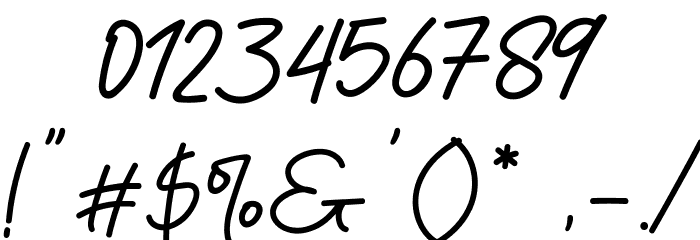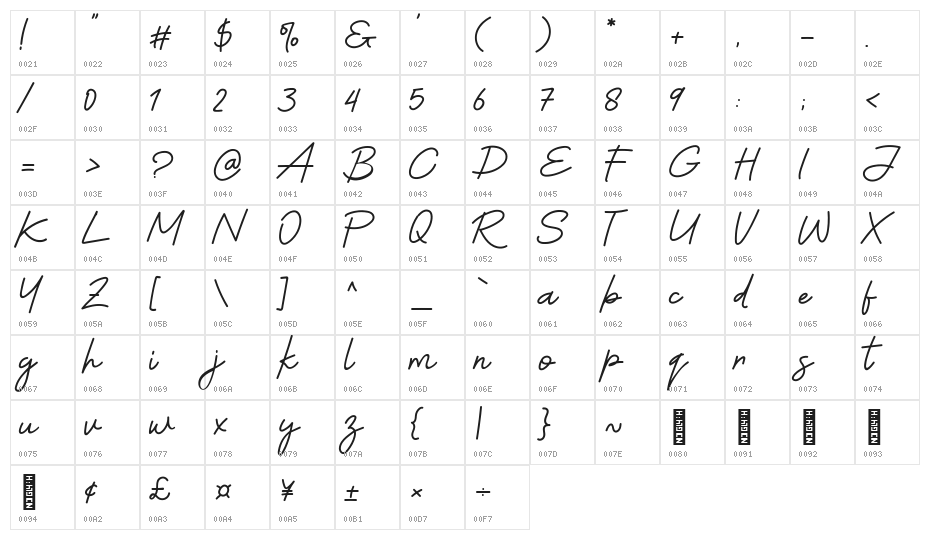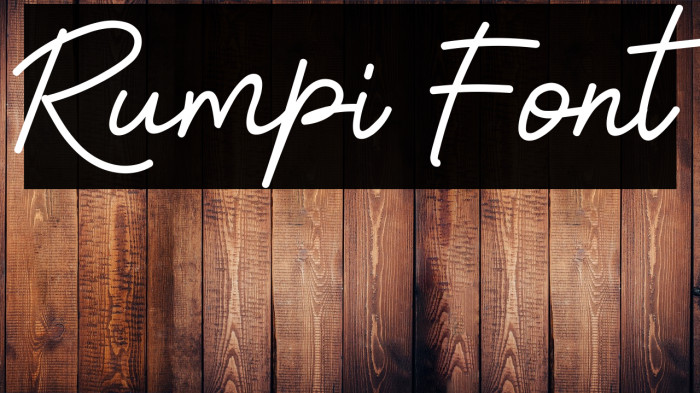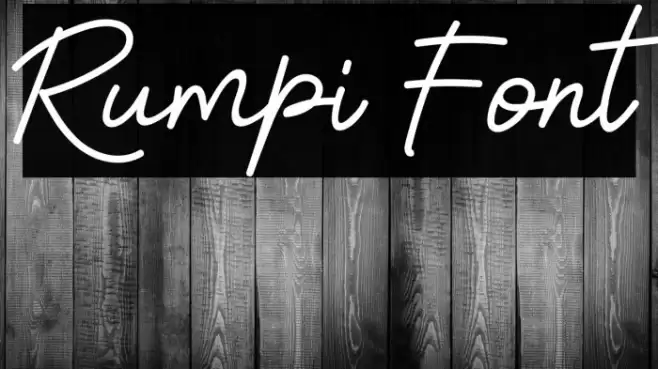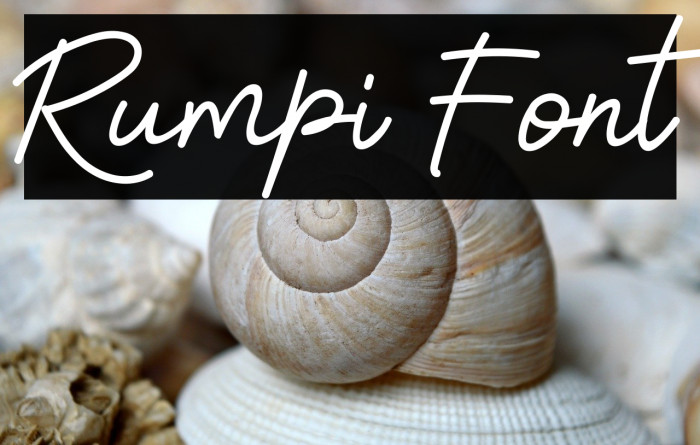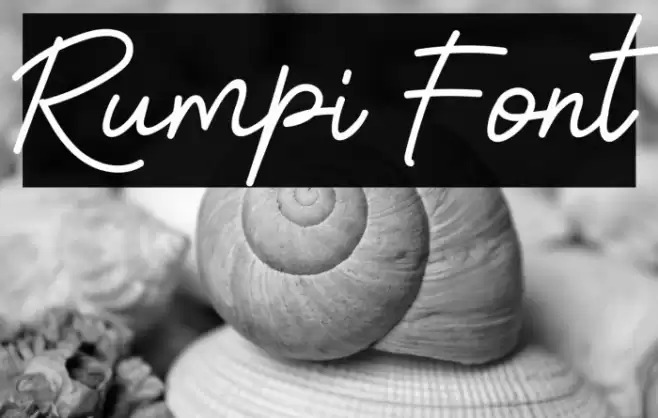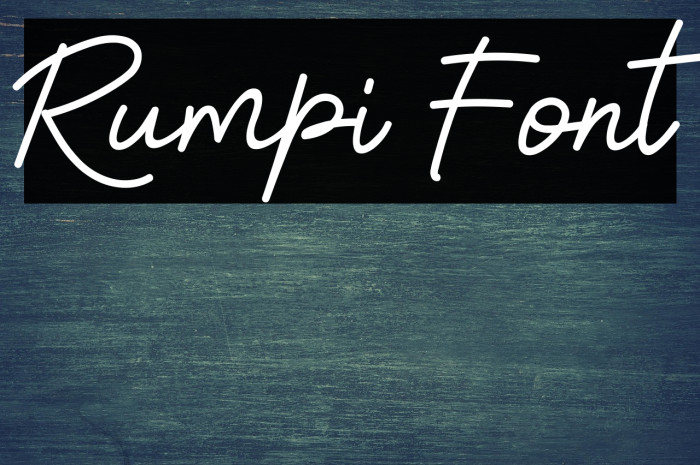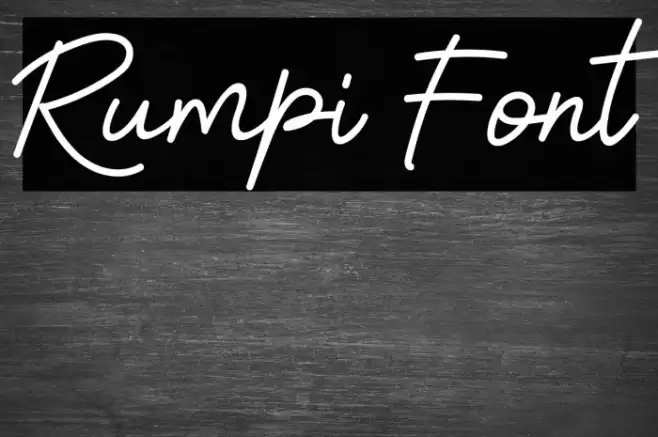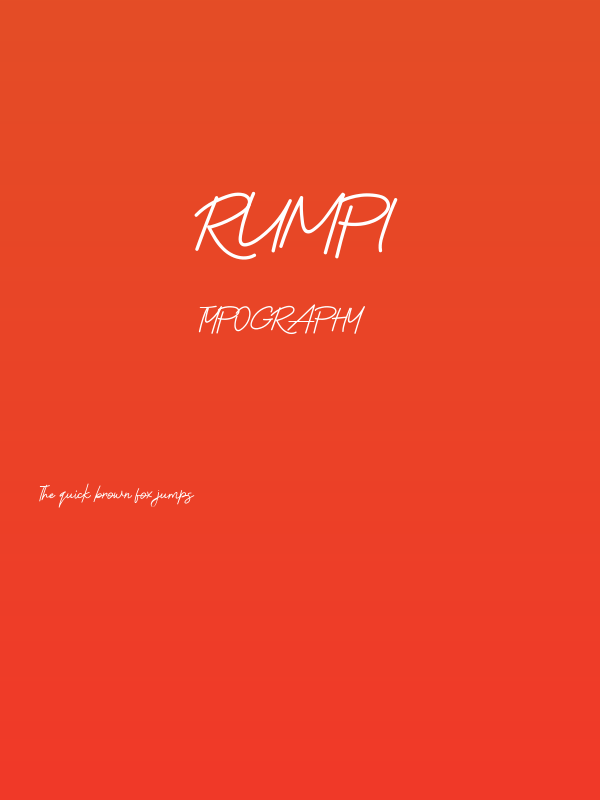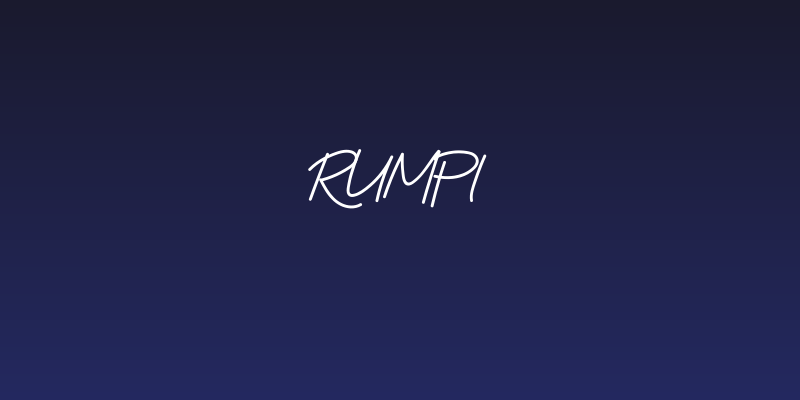
Rumpi Font
Rumpi Description
This font exhibits a lively and dynamic handwritten style, characterized by fluid and continuous strokes that mimic natural handwriting. The uppercase letters are slightly slanted, giving a sense of movement and energy, while the lowercase letters maintain a consistent flow with occasional loops and curves. The numerals are clear and legible, maintaining the same handwritten aesthetic. Special characters are seamlessly integrated, maintaining the overall style. The font's informal and personal touch makes it suitable for projects that require a humanistic and approachable feel.
| Proposed Projects | Ideal for personal branding, invitations, greeting cards, and creative projects that require a personal and informal touch. |